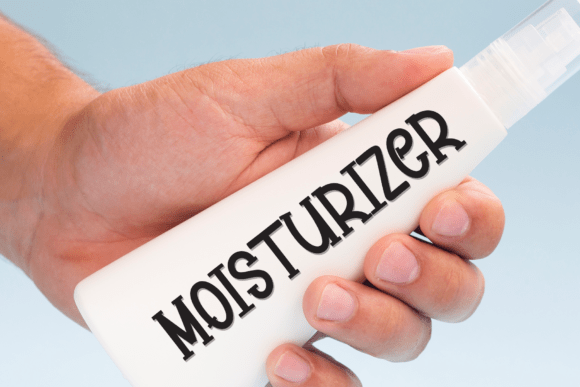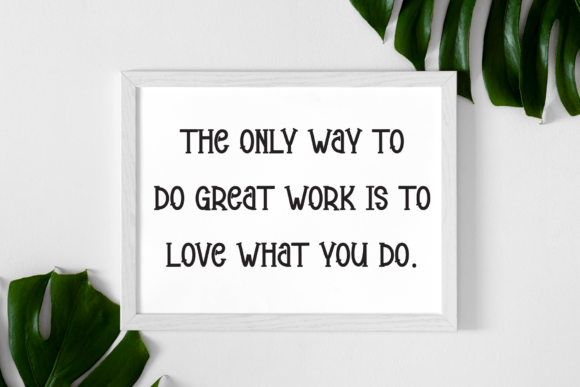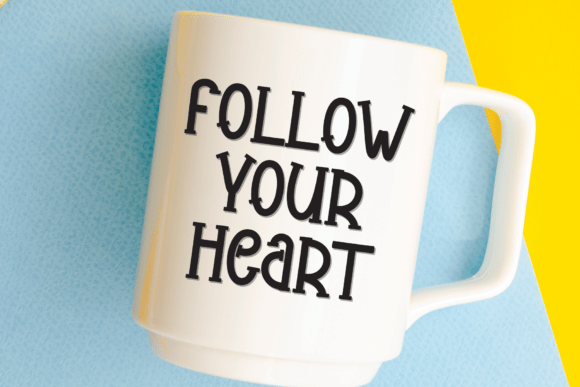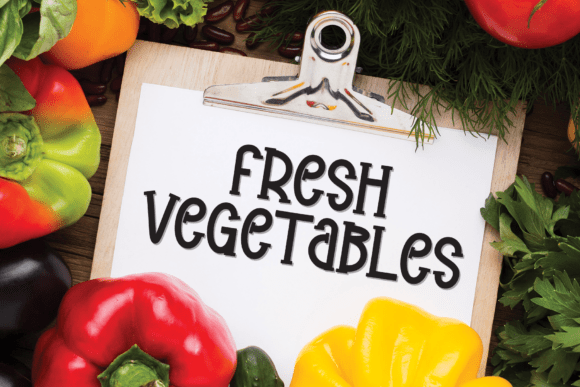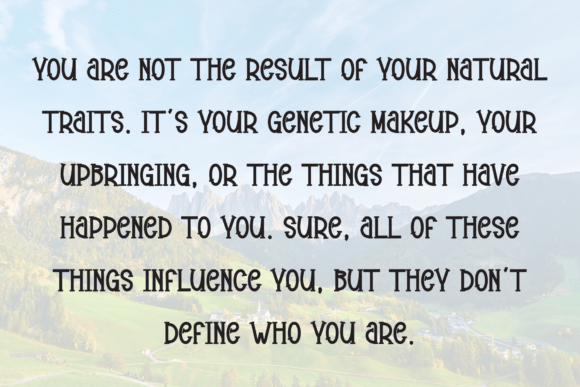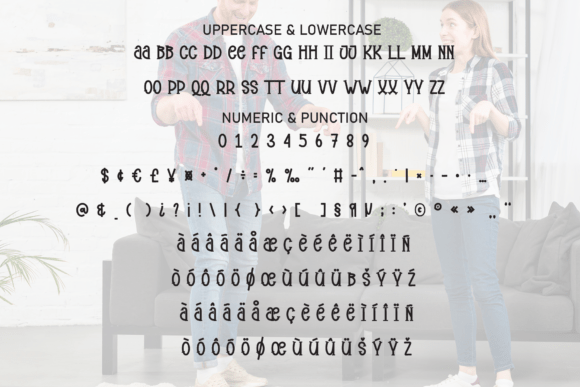
Game Over Font: Elevate Your Designs with a Charming Handwritten Display Font
Are you tired of using the same old fonts in your designs? Look no further! Introducing the Game Over Font, a charming and congenial handwritten display font that’s perfect for adding a touch of fun to your designs. This irresistibly sweet typeface is tailor-made for crafting enchanting wedding invitations, personalized cards, and more. With its friendly aesthetic, every message becomes a delightful display of charm, transforming any design into a playful visual treat.
As a designer or crafter, you know how important it is to choose the right font for your project. The Game Over Font is ideal for injecting a light-hearted spark into your design expression. Its unique and playful style is sure to capture the attention of your audience and leave a lasting impression. Whether you’re creating wedding invitations, greeting cards, or social media graphics, this font is sure to add a touch of whimsy and fun to your designs.
Key Features of the Game Over Font
So, what makes the Game Over Font so special? Here are just a few of its key features:
- Handwritten display font: The Game Over Font is a beautiful, handwritten display font that’s perfect for adding a personal touch to your designs.
- Charming and congenial: This font has a friendly and approachable aesthetic that’s sure to make your designs feel warm and inviting.
- Perfect for wedding invitations and personalized cards: The Game Over Font is tailor-made for crafting enchanting wedding invitations and personalized cards that will make your loved ones feel special.
- Easy to read: Despite its playful style, the Game Over Font is easy to read, making it perfect for use in a variety of design applications.
How to Use the Game Over Font in Your Designs
Using the Game Over Font in your designs is easy! Here are a few tips to get you started:
- Pair it with other fonts: The Game Over Font pairs perfectly with other fonts, such as sans-serif fonts or script fonts. Experiment with different combinations to find the one that works best for your design.
- Use it for headings and titles: The Game Over Font is perfect for use in headings and titles, where its playful style can really shine.
- Add some color: The Game Over Font looks great in a variety of colors, so don’t be afraid to experiment with different hues and combinations.
Tips for Crafters and Small Business Owners
If you’re a crafter or small business owner, the Game Over Font can be a great addition to your design toolkit. Here are a few tips for using this font in your designs:
- Use it for product labels: The Game Over Font is perfect for use on product labels, where its playful style can help your products stand out.
- Create custom stationery: Use the Game Over Font to create custom stationery, such as business cards, letterhead, and more.
- Add a personal touch: The Game Over Font is perfect for adding a personal touch to your designs, whether you’re creating custom wedding invitations or personalized gifts.